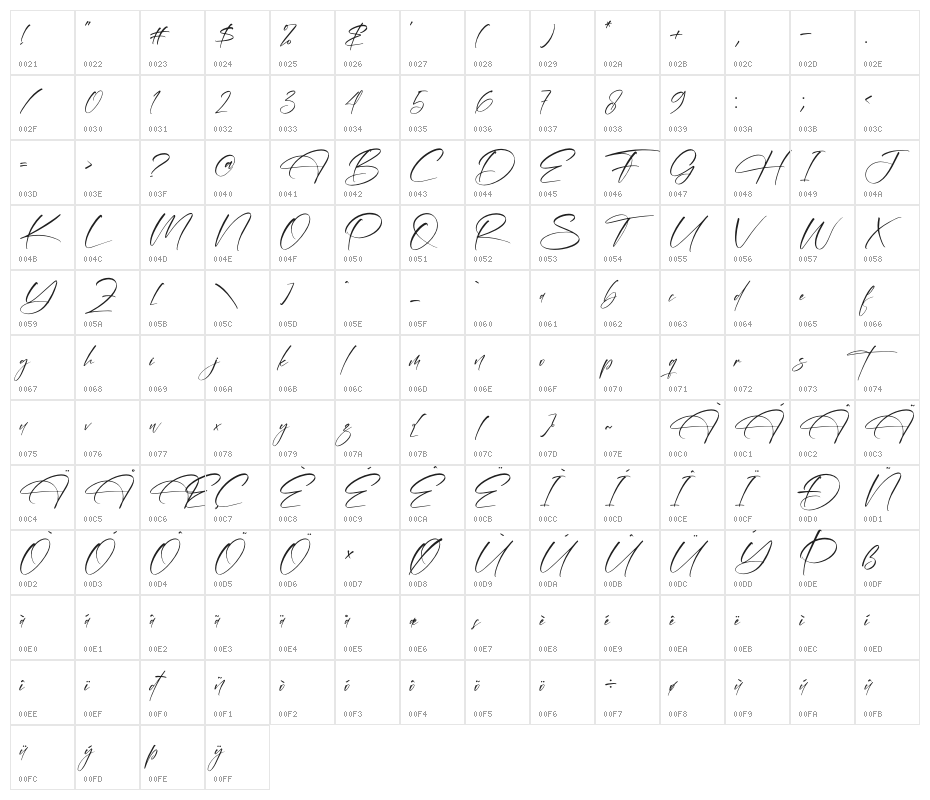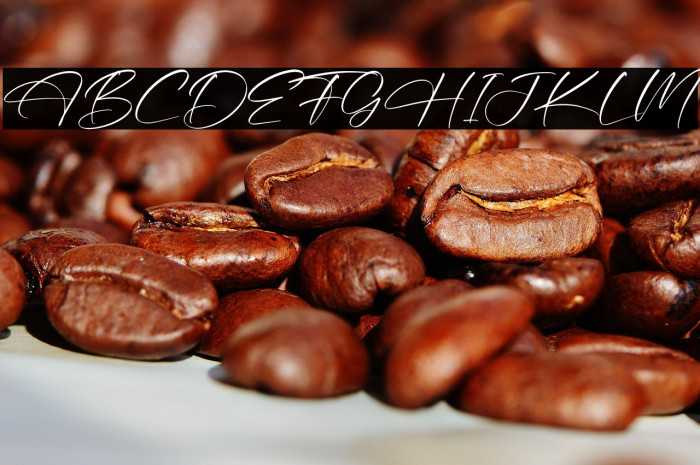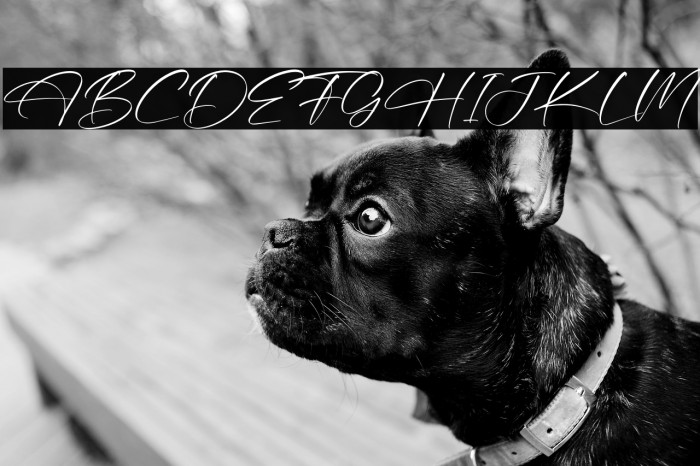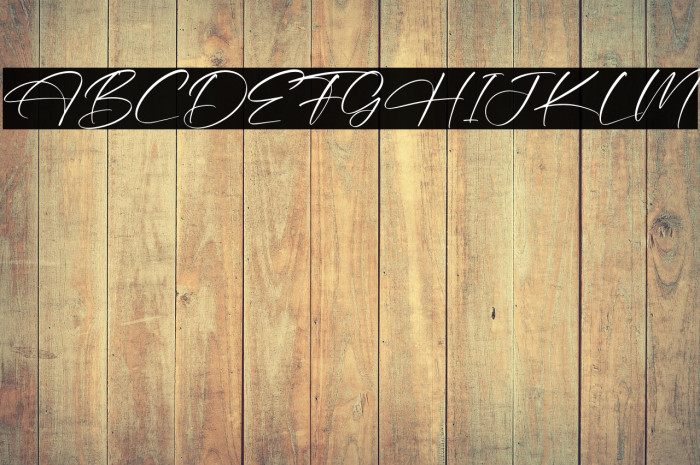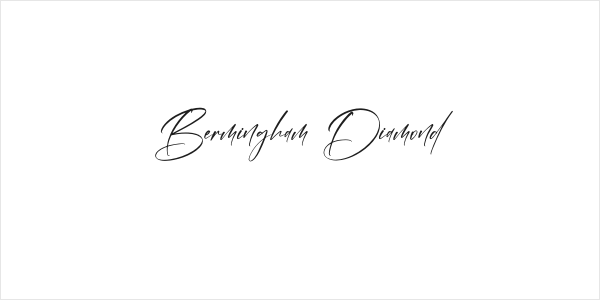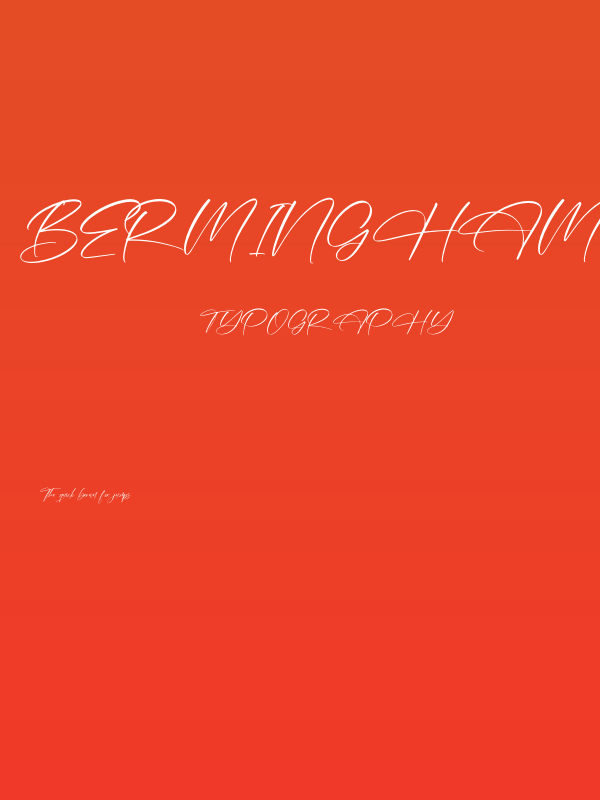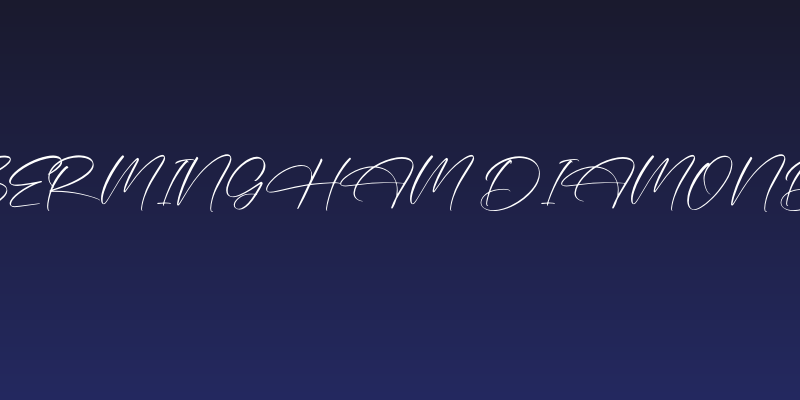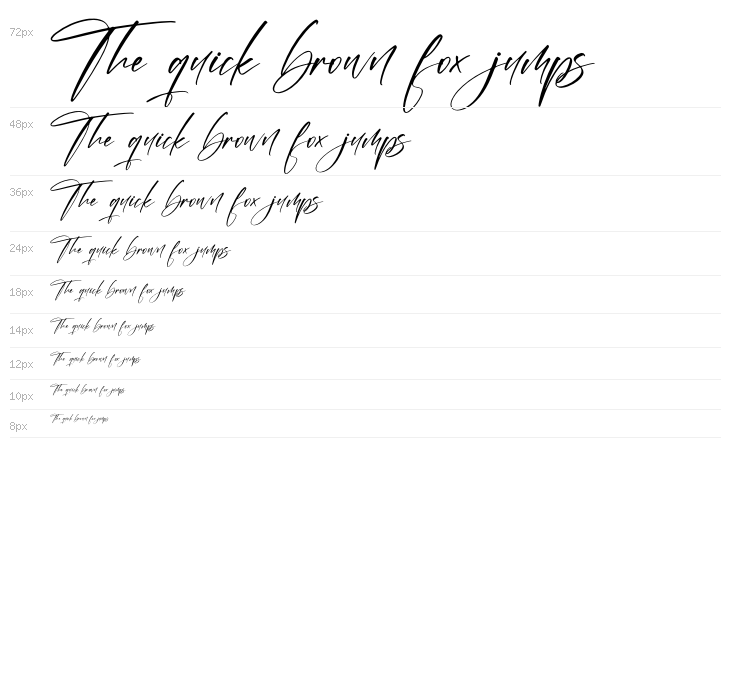
Bermingham Diamond Font
Bermingham Diamond Description
This elegant script font features a flowing, cursive style with high contrast between thick and thin strokes. The letters are connected in a fluid manner, giving it a sophisticated and graceful appearance. The uppercase letters are particularly ornate, with sweeping lines and loops that add a touch of flair. The lowercase letters maintain a consistent style, complementing the uppercase with their own subtle curves. Numbers and special characters are designed to match the overall aesthetic, ensuring a cohesive look across all text. This font is perfect for projects that require a touch of elegance and sophistication.
| Overall Style | Elegant, Sophisticated |
| Proposed Projects | Ideal for wedding invitations, luxury branding, elegant stationery, and high-end product packaging. |